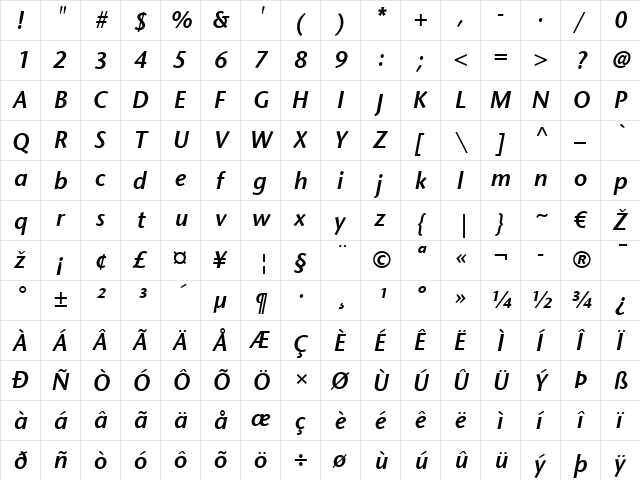
StoneSans LT Bold Italic Font Preview
Design Context for StoneSans LT Typeface
StoneSans LT offers clean, dependable letterforms without strong stylistic allegiance, making it a practical choice for designers who need flexibility. The dynamic lean of this cut emphasises speed and emphasis in any layout. The heavy weight commands attention and anchors typographic hierarchies.
Pro Tip: Try StoneSans LT for annotation and caption copy alongside an upright companion — the contrast in angle creates a dynamic but ordered typographic system.